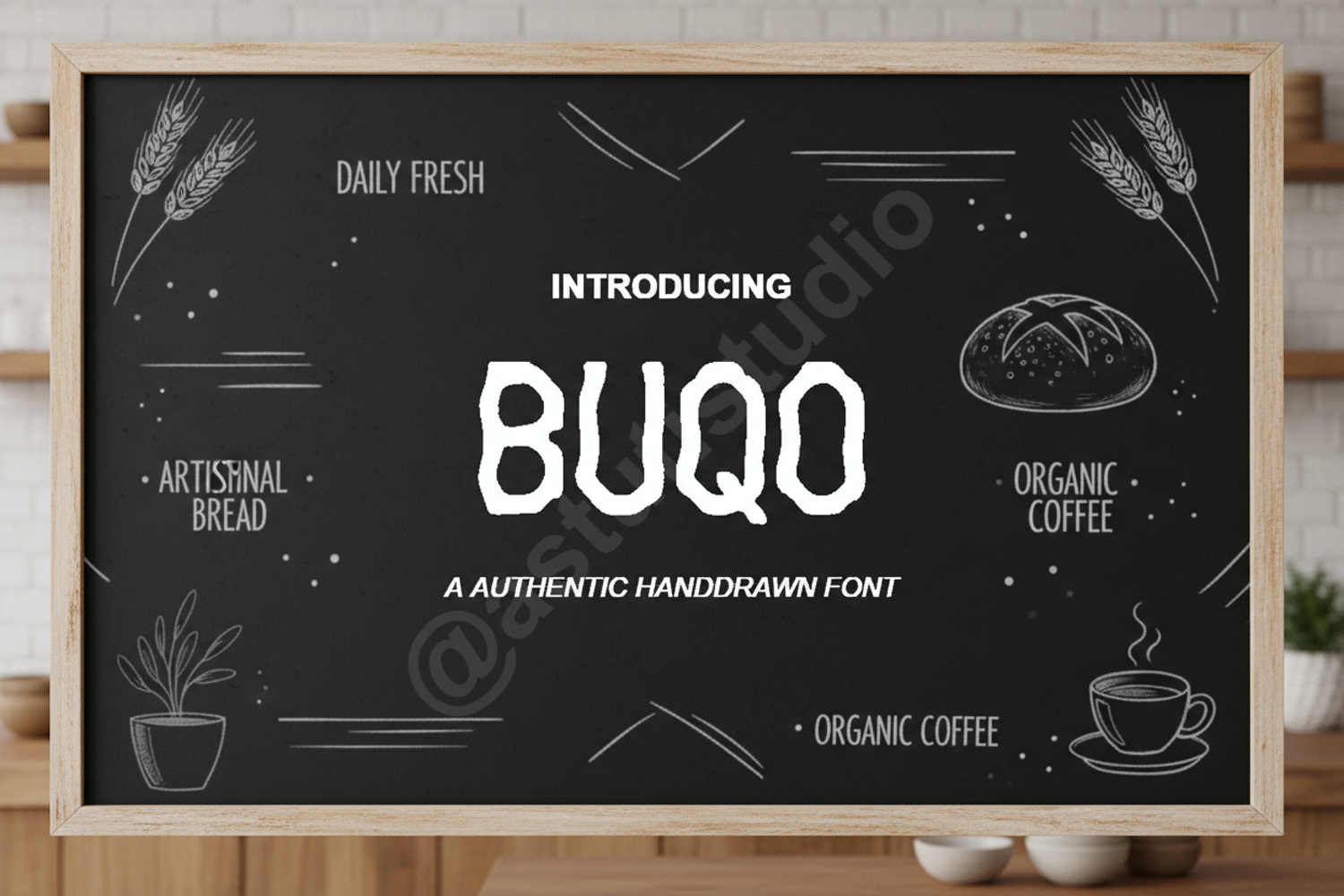
Buqo | Elegant Modern Serif Typeface
Buqo
Buqo - A Symphony of Luxury and Precision
Experience the pinnacle of editorial design with Buqo, a premium serif typeface designed for high-end aesthetic clarity. Buqo bridges the gap between classic refinement and contemporary boldness, making it the perfect choice for luxury branding, high-fashion typography, and a professional social media presence. Every curve and terminal has been meticulously crafted to ensure your brand communicates exclusivity and taste.
- Elegant high-contrast strokes and refined terminals
- A curated collection of bespoke ligatures and alternates
- Full multilingual support including accented characters
- Precise kerning for a seamless, professional reading experience
- Versatile performance across both high-resolution print and digital media
Refine your creative portfolio and captivate your audience with the timeless appeal of Buqo, the ultimate tool for modern storytellers.